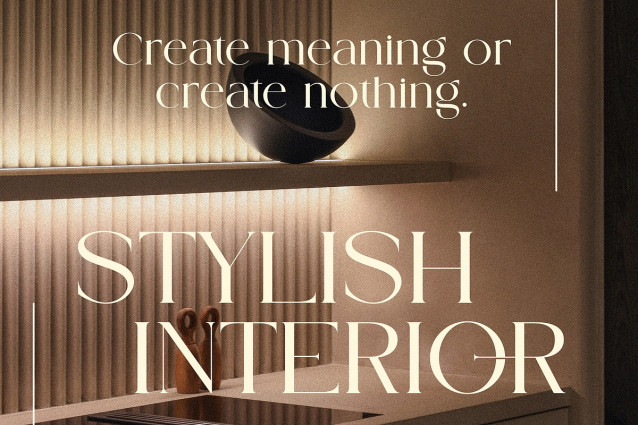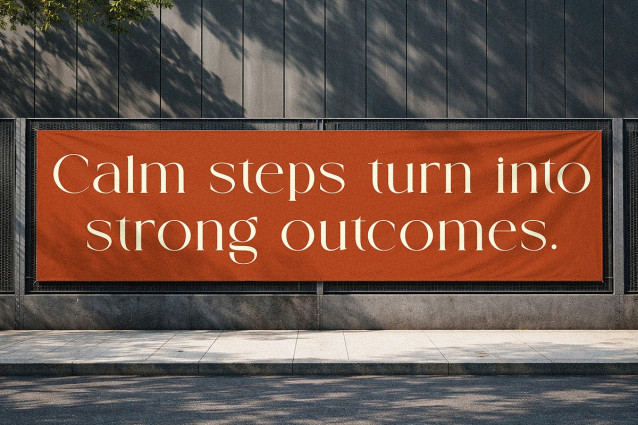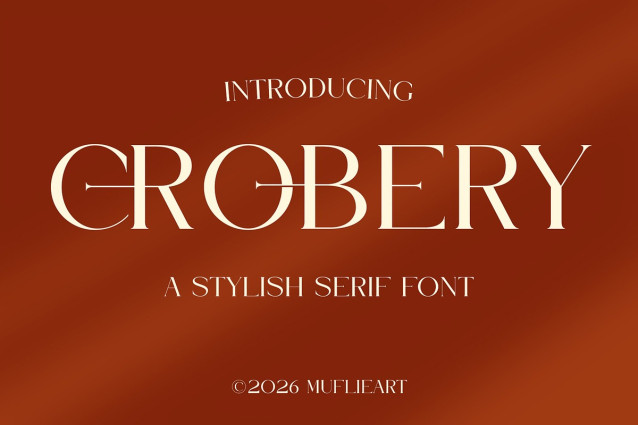
Crobery Font
Crobery Font the elegant, beautiful, and modern Serif. With its modern and minimalist look, Crobery brings a luxurious, classy, ​​and clean style to your projects such as websites, modern logos, brand identities, social media quotes, wedding stationery, magazines, and more!
Crobery features unique and classy capital letters A to Z and also comes with unique ligatures making Crobery a beautiful font that can be customized for various projects and jobs you want.